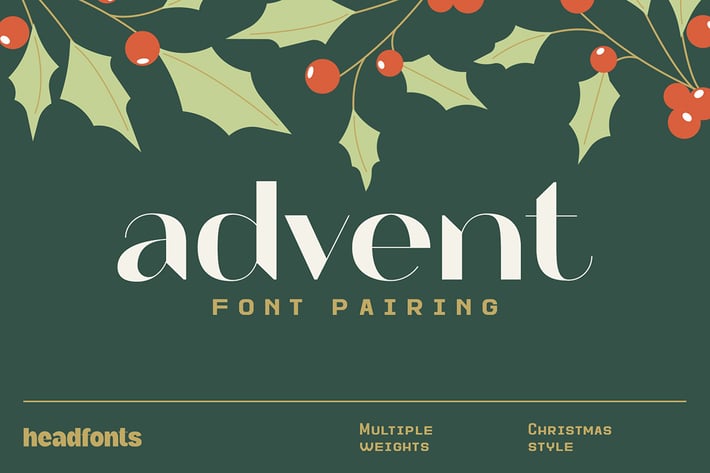
Advent Font Pairing / Christmas Font
Introducing Advent Font Pairing, a contrasting pair of festive fonts. One is elegant, while the other one, is simple and geometric sans serif, together make the best duo for your Christmas designs. This pairing is versatile, being a combination of an exquisite font like Arthead with Retrohead, an industrial sans serif typeface.
You can use this merry and bright duo for almost any festive design project that requires a glamorous, decorative whisper. Merry Christmas to you all!